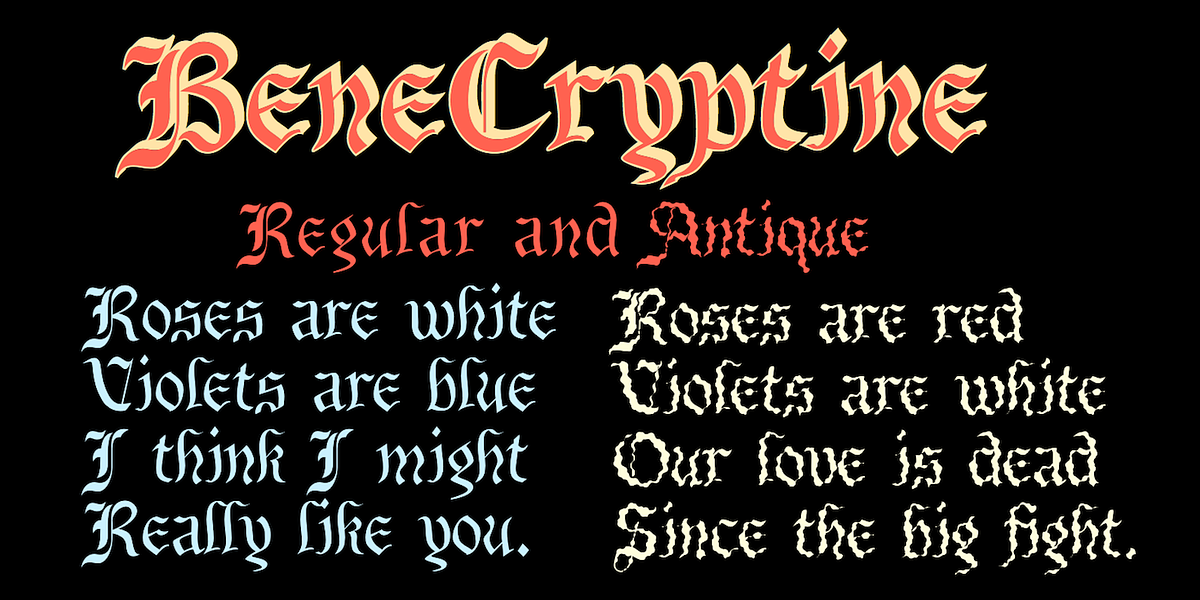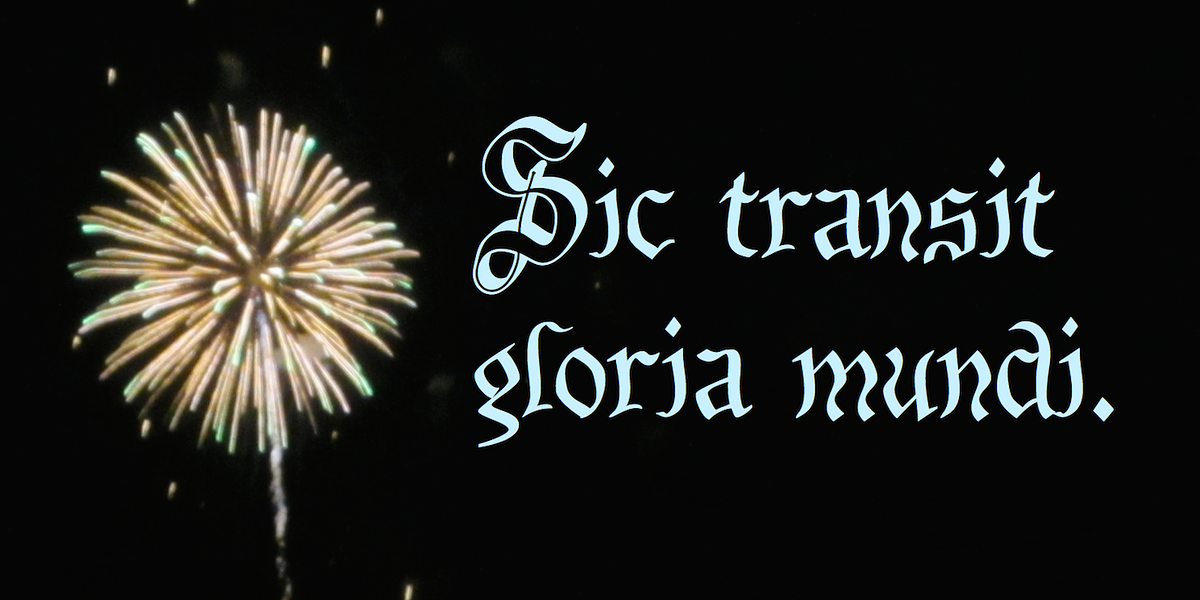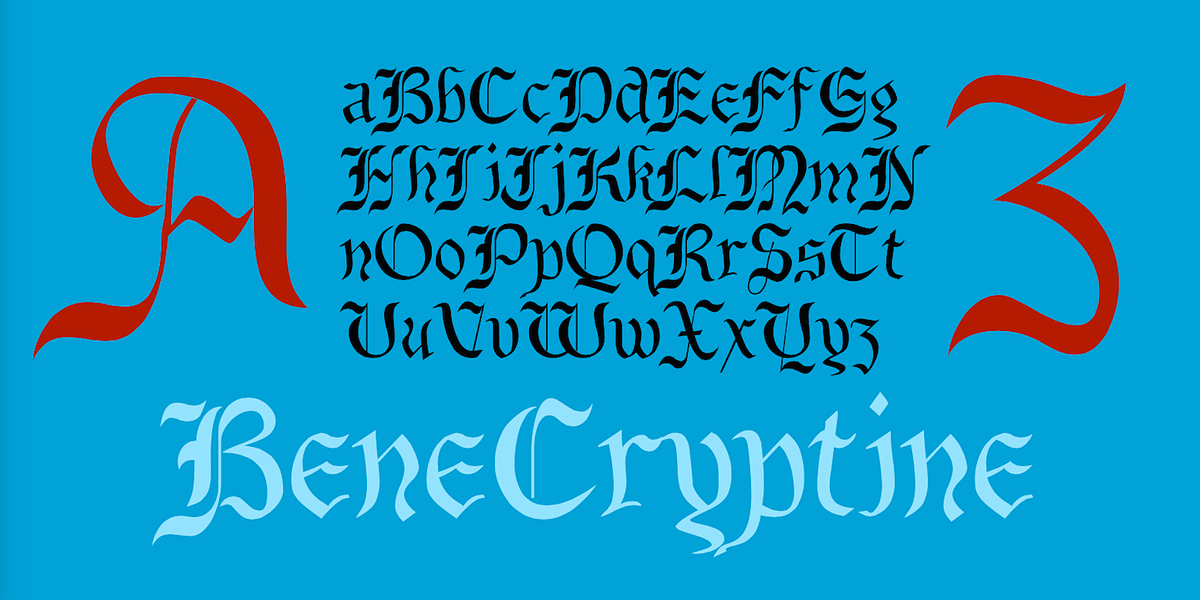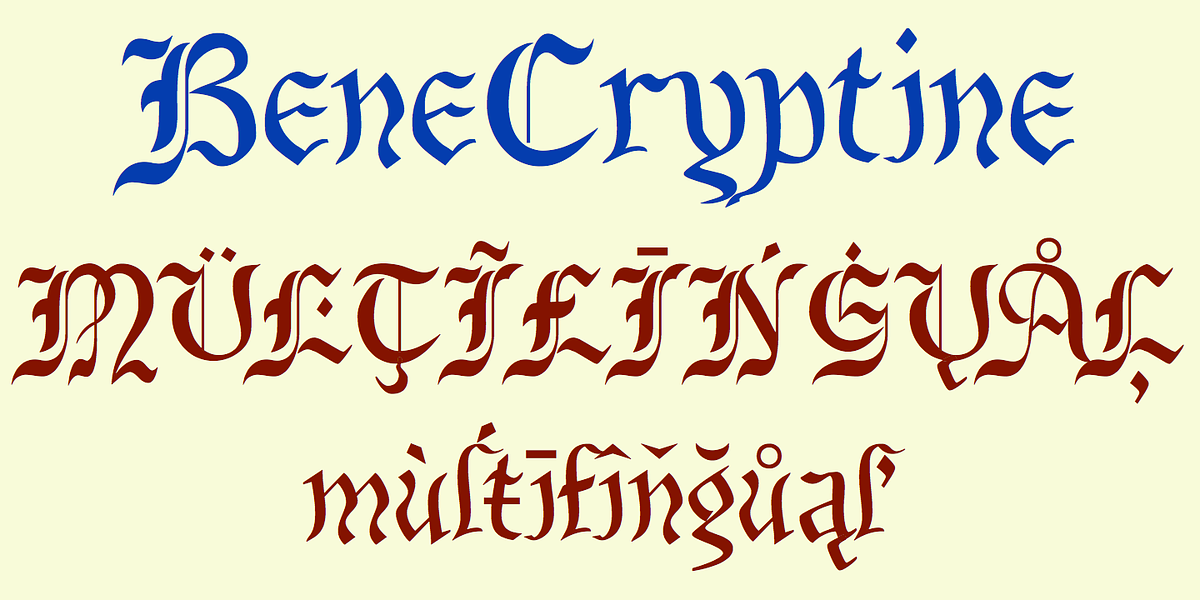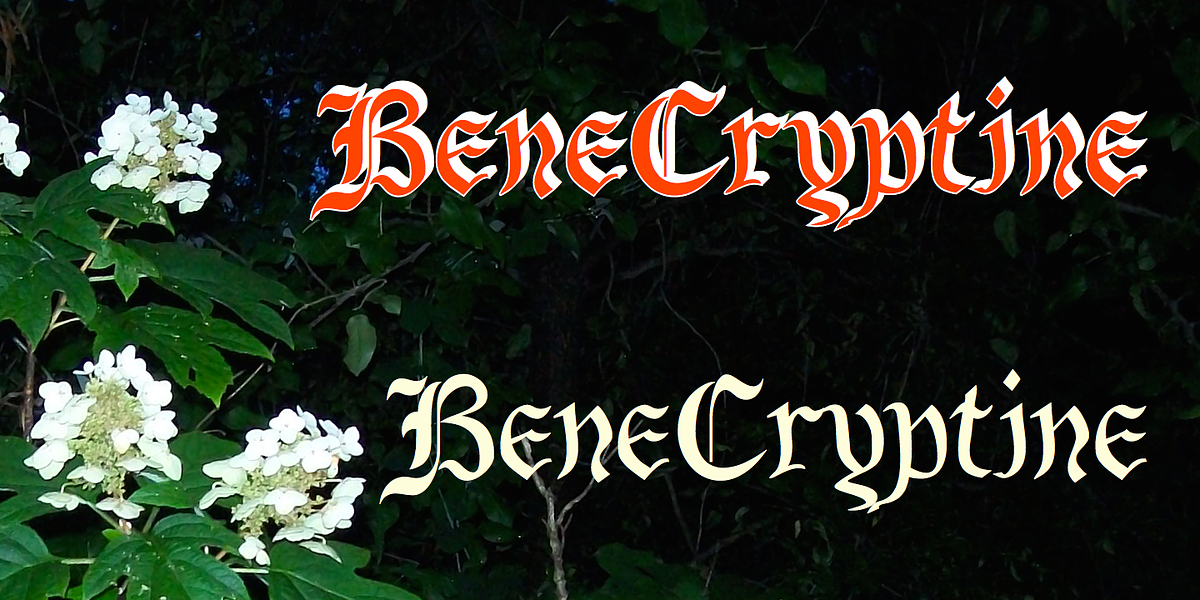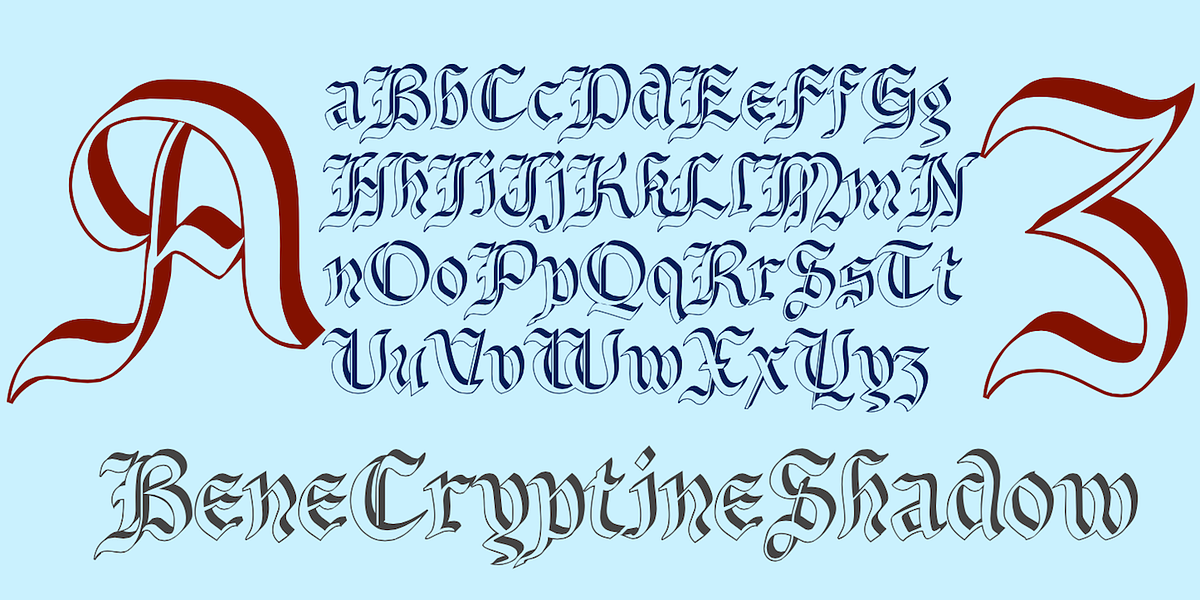
BeneCryptine
BeneCryptine is a calligraphic blackletter font characterized by exaggerated uppercase letters and highly stylized lowercase letters. This gives the typeface a distinct wild and undisciplined aesthetic. It offers four styles: a base style, a decayed variant, a shadowed style, and a layered style that resembles the base style but with the spacing of the shadowed style. The ability to layer the final style with the shadowed style allows for easy creation of two-colored lettering.